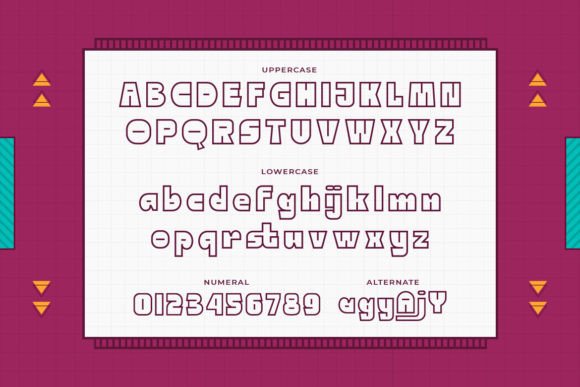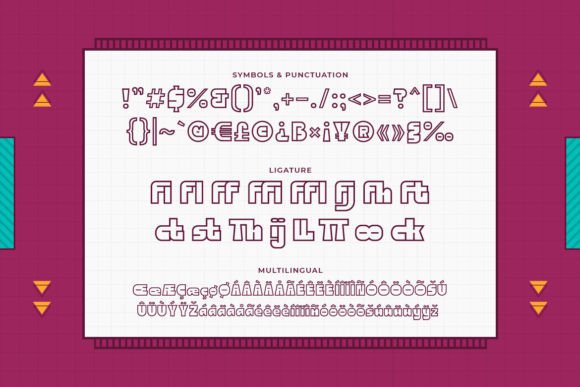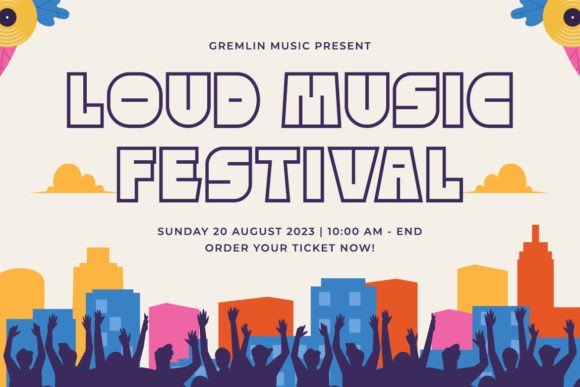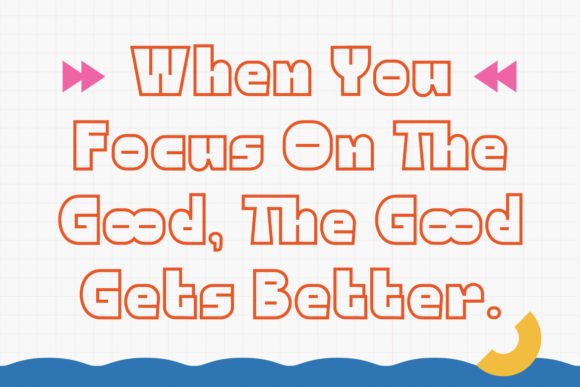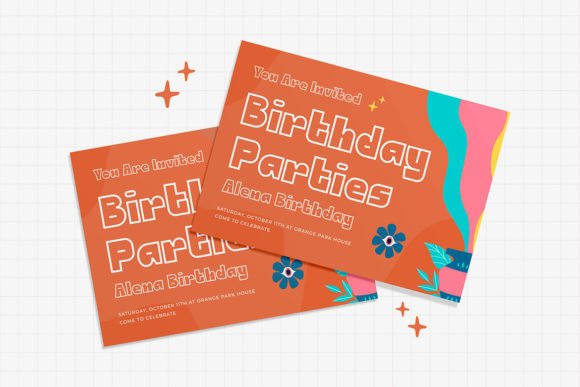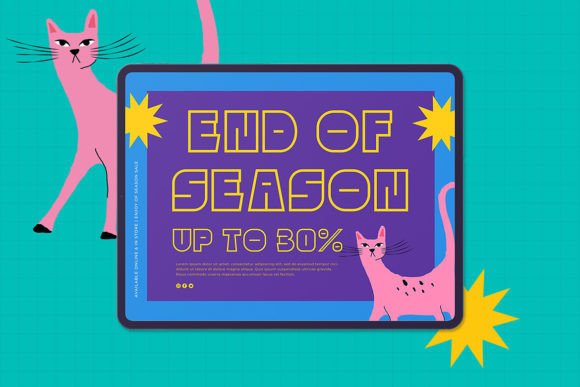
Introducing Gremlin Font: A Unique Outlined Display Font for Creative Projects
Are you a designer or crafter looking for a font that can add a touch of personality to your creative projects? Look no further than Gremlin Font, a unique outlined display font that can be used for a wide range of purposes. From quotes and descriptions to mugs, invitations, and signage, Gremlin Font is the perfect choice for anyone looking to add a bit of flair to their designs.
What is Gremlin Font?
Gremlin Font is a one-of-a-kind outlined display font that is designed to make your text stand out. Its unique outline style gives it a distinctive look that is sure to grab attention. Whether you’re working on a graphic design project, crafting a handmade item, or creating digital content, Gremlin Font is a versatile choice that can be used in a variety of contexts.
Uses for Gremlin Font
So, what can you use Gremlin Font for? The possibilities are endless! Here are just a few ideas to get you started:
- Quotes and descriptions: Add a touch of personality to your quotes and descriptions with Gremlin Font.
- Mugs and ceramics: Create custom mugs, tumblers, and other ceramics with Gremlin Font.
- Invitations and greeting cards: Make your invitations and greeting cards stand out with Gremlin Font.
- Letterheads and signage: Use Gremlin Font for your letterheads, signage, and other business materials.
- Labels and packaging: Add a touch of personality to your labels and packaging with Gremlin Font.
- News and media: Use Gremlin Font for your news headlines, article titles, and other media projects.
- Posters and flyers: Create eye-catching posters and flyers with Gremlin Font.
- Badges and logos: Use Gremlin Font to create custom badges and logos.
Why Choose Gremlin Font?
So, why should you choose Gremlin Font for your next project? Here are just a few reasons:
- Unique style: Gremlin Font has a unique outlined style that sets it apart from other fonts.
- Versatility: Gremlin Font can be used for a wide range of projects, from graphic design to crafting.
- High-quality design: Gremlin Font is designed to be high-quality and legible, making it perfect for both digital and print projects.
Tips for Using Gremlin Font
Here are a few tips for using Gremlin Font in your projects:
- Experiment with different colors: Gremlin Font looks great in a variety of colors, so don’t be afraid to experiment.
- Play with font sizes: Gremlin Font can be used at a variety of font sizes, from small to large.
- Combine with other fonts: Gremlin Font pairs well with other fonts, so try combining it with a serif or script font.
- Use it sparingly: Gremlin Font is a bold font, so use it sparingly to add emphasis to your text.
In conclusion, Gremlin Font is a unique outlined display font that is perfect for designers and crafters looking to add a touch of personality to their projects. With its versatility, ease of use, and high-quality design, Gremlin Font is a great choice for a wide range of applications. Whether you’re working on a graphic design project, crafting a handmade item, or creating digital content, Gremlin Font is sure to make your text stand out.